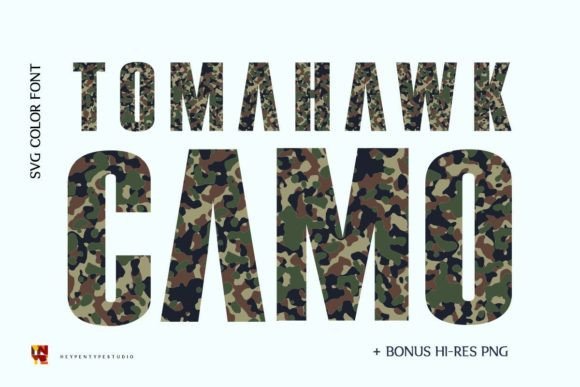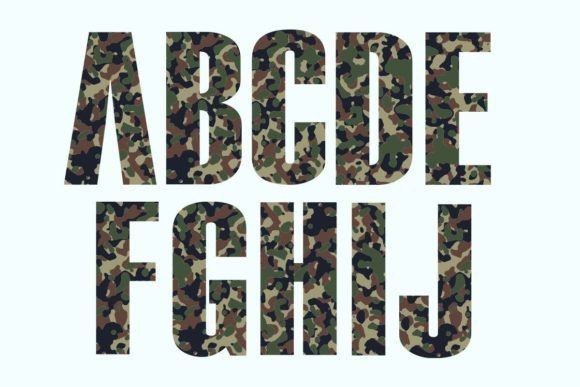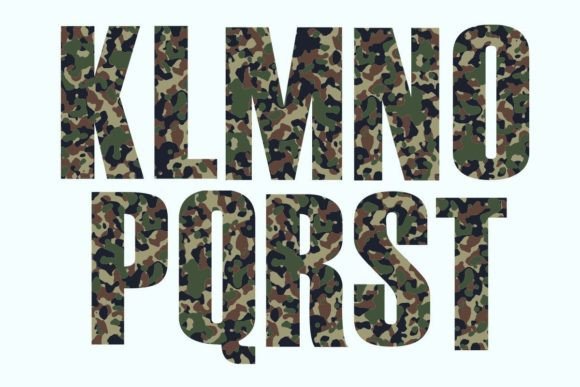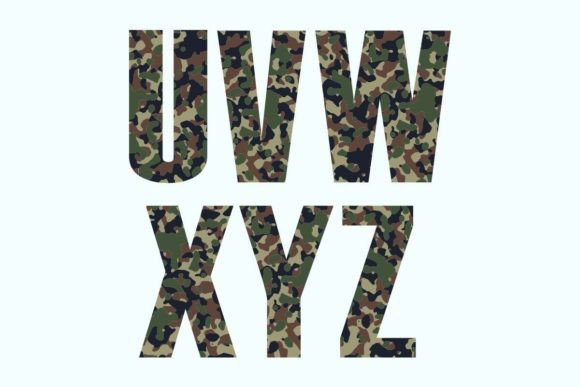
About Tomahawk Camo Font
Introducing Tomahawk Camo, the bold and distinctive color font that brings a military-inspired look to your designs. With its striking green forest camouflage pattern, this font adds a unique and strong character to your projects.
Tomahawk Camo is perfect for creating apparel designs that exude a military accent. Whether you’re designing t-shirts, hats, or other garments, this font will make your creations stand out with its bold and commanding presence. Imagine designing army-themed clothing or outdoor gear with Tomahawk Camo, instantly giving them an authentic and rugged feel.
Not limited to apparel, Tomahawk Camo can also be used for creating impactful posters, flyers, or any design that needs a strong and attention-grabbing military aesthetic. The camouflage pattern adds a sense of toughness and resilience to your visuals, making them visually compelling and captivating.
So, unleash the power of Tomahawk Camo and infuse your designs with a bold and strong military vibe. Let this font be your ally in creating visually impactful and memorable projects that command attention. Whether you’re designing for personal or professional purposes, Tomahawk Camo is here to elevate your work to new heights of visual impact and strength.